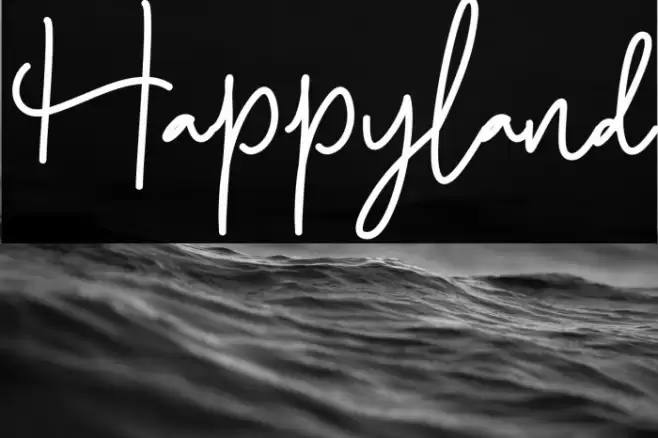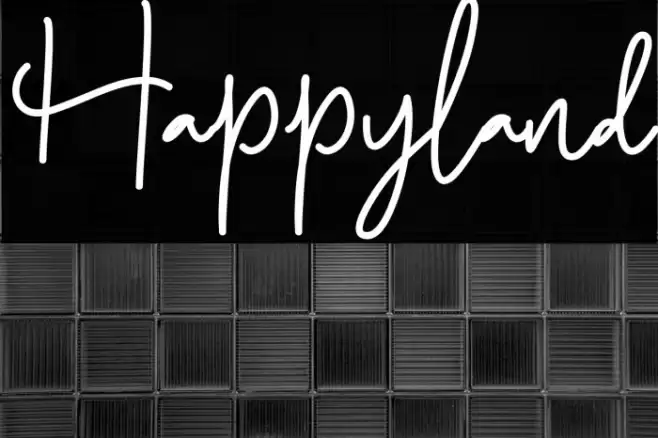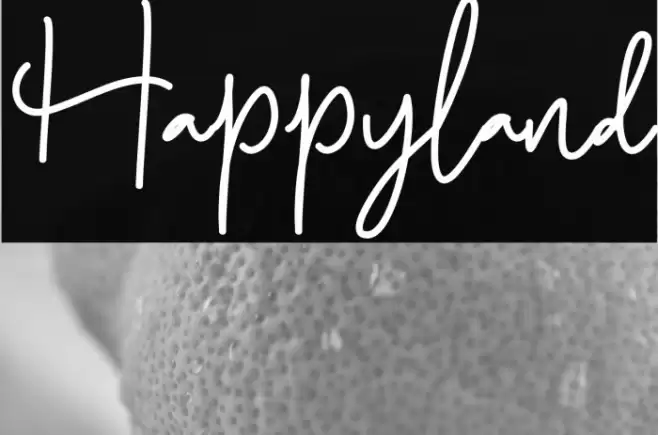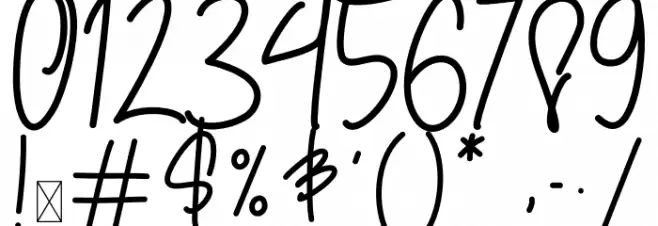
Happyland Font
Happyland Description
This font exudes a playful and casual vibe with its handwritten script style. The letters are fluid and connected, mimicking the natural flow of handwriting. Uppercase letters maintain a consistent height, while lowercase letters vary in size, adding to the informal charm. The strokes are smooth and slightly varied in thickness, giving a lively and dynamic appearance. The numerals and special characters follow the same whimsical style, ensuring a cohesive look across all text elements. This font is perfect for projects that require a personal touch or a sense of spontaneity.
A playful, handwritten script font with fluid, connected letters from Regular fonts.
- Proposed Projects: Ideal for greeting cards, invitations, personal branding, and creative projects requiring a casual, handwritten feel.
- Overall Style: Casual, Playful
- Use Case: Logos, Invitations, Greeting Cards